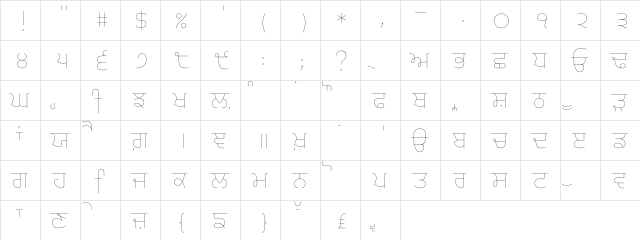
Gurvetica a0 Ultra Thin Thin Font Preview
Gurvetica a0 Ultra Thin Thin
Gurvetica a0 Ultra Thin Thin Font Details
Design Context for Gurvetica a0 Ultra Thin Typeface
Gurvetica a0 Ultra Thin offers clean, dependable letterforms without strong stylistic allegiance, making it a practical choice for designers who need flexibility. The delicate stroke weight brings airiness and refinement to layouts.